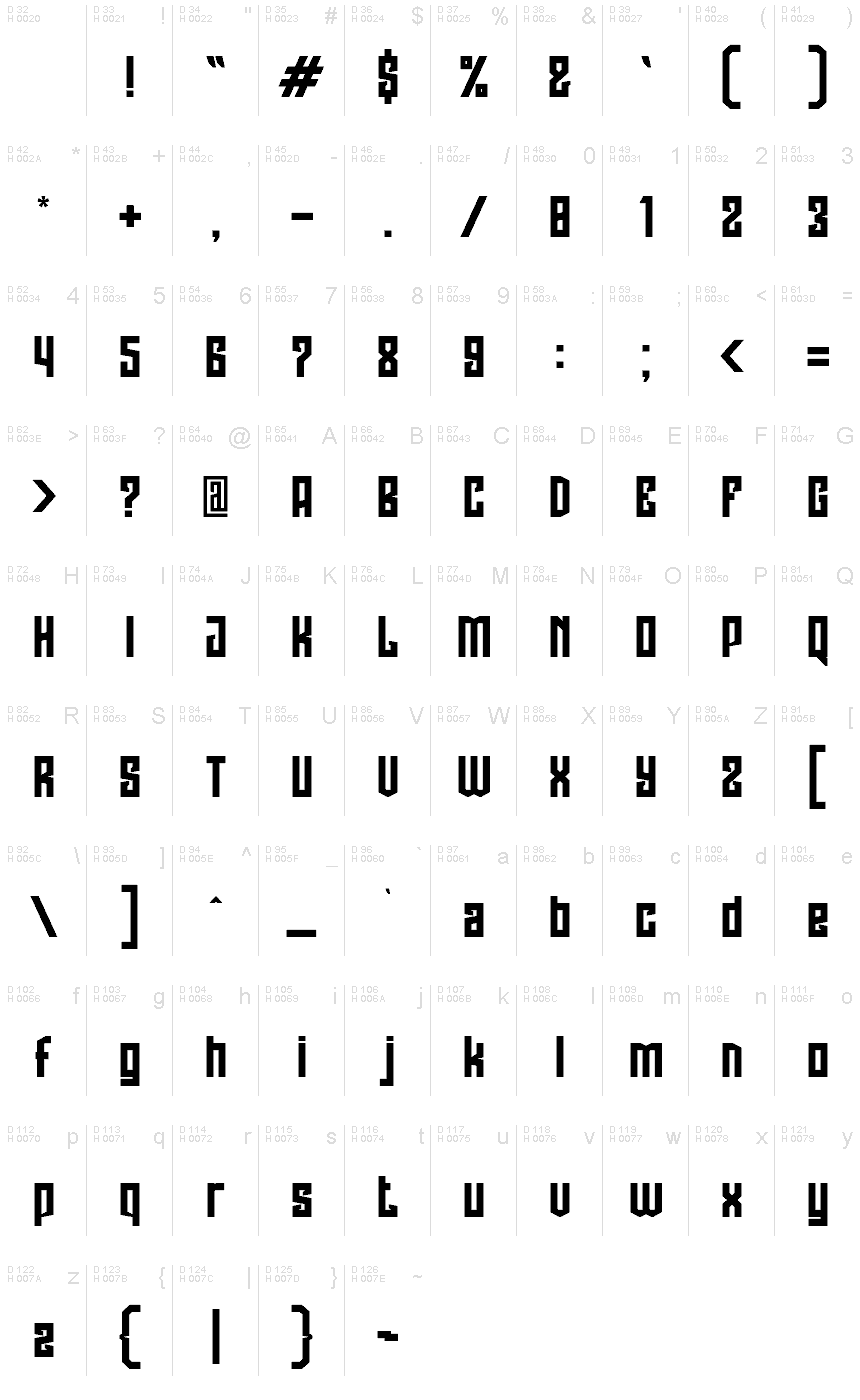
NCL Sebgorq
NCL Sebgorq font by Enxyclo Studio is a condensed sans serif typeface distinguished by its strong geometric shapes and modern, futuristic aesthetic. With an industrial feel and digital influence, it creates a powerful statement, making it suitable for all your professional projects as well as occasional personal ones.